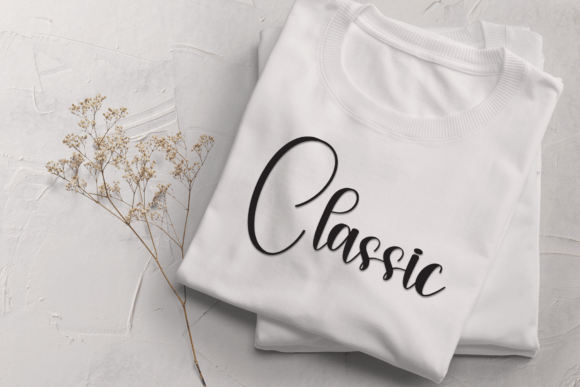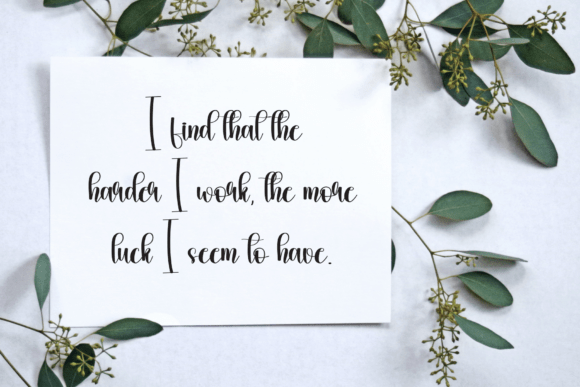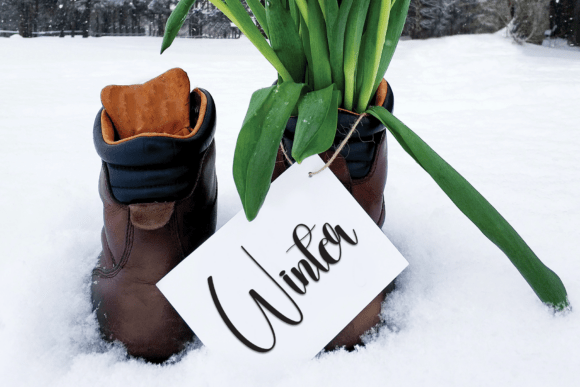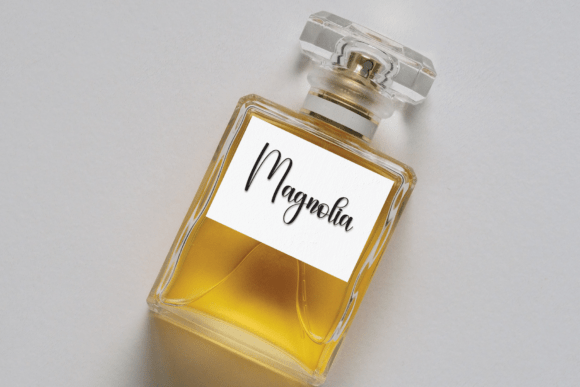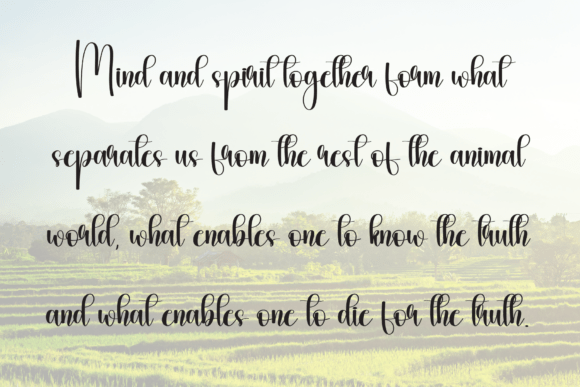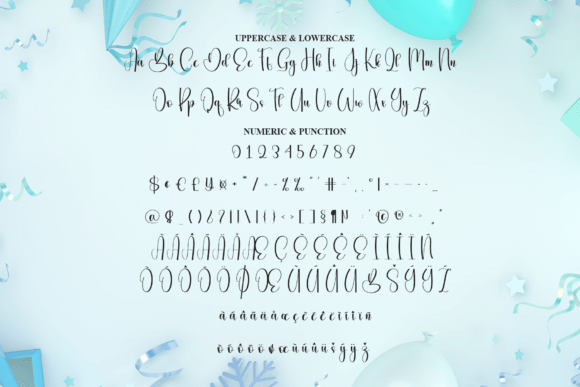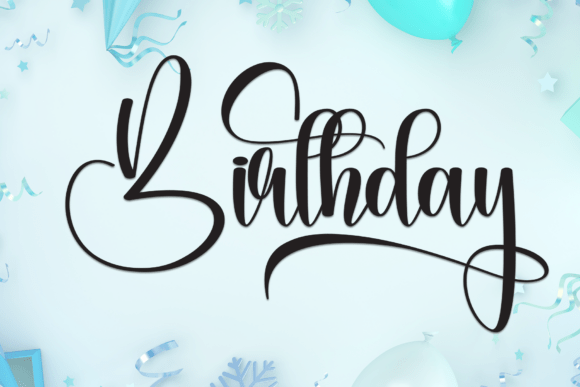
Birthday Font: The Amiable Handwritten Font for Joyful Celebrations
Are you looking for a font that can add a touch of whimsy and warmth to your designs? Look no further than the Birthday Font, an amiable handwritten font that exudes playfulness and sophistication. This delightful font is perfect for capturing and enhancing moments of joy and celebration, making it a gem in typography that brings a sprinkle of fun to any design.
The Charm of Birthday Font
The Birthday Font is a handwritten font that is designed to bring a sense of friendliness and approachability to your designs. Its playful and whimsical style makes it perfect for crafting enchanting wedding invitations, eye-catching cards, and other celebratory materials. With its sweet and charming personality, this font is sure to make every word resonate with feeling.
Perfect for Celebratory Designs
Whether you’re a designer or a crafter, the Birthday Font is an excellent choice for any project that calls for a touch of fun and playfulness. Its delightful style brings to life any design that needs a sprinkle of whimsy and warmth. From wedding invitations and birthday cards to party decorations and social media graphics, this font is versatile and easy to use.
- Playful Sophistication: The Birthday Font has a unique blend of playfulness and sophistication that makes it perfect for celebratory designs.
- Whimsical Style: Its whimsical style adds a touch of fun and personality to any design.
- Easy to Read: The font is easy to read and understand, making it perfect for body text and headings.
- Versatile: The Birthday Font is versatile and can be used for a wide range of design projects, from digital to print.
Tips for Using Birthday Font
Here are some tips for using the Birthday Font in your designs:
- Pair with Other Fonts: Pair the Birthday Font with other fonts to create a unique and interesting contrast.
- Use for Headings and Titles: Use the Birthday Font for headings and titles to add a touch of playfulness and whimsy.
- Add Colors and Graphics: Add colors and graphics to your design to make it more visually appealing.
- Experiment with Different Sizes: Experiment with different font sizes to create a hierarchy of information and add visual interest.
The Birthday Font offers several benefits for designers and crafters, including:
- Time-Saving: The Birthday Font saves time and effort in designing and crafting celebratory materials.
- Unique Designs: The font helps create unique and eye-catching designs that stand out from the crowd.
- Easy to Use: The Birthday Font is easy to use and requires no special design skills.
- Customizable: The font can be customized to fit your design needs and preferences.
In conclusion, the Birthday Font is a delightful and amiable handwritten font that exudes playfulness and sophistication. Its whimsical style and sweet personality make it perfect for capturing and enhancing moments of joy and celebration. Whether you’re a designer or a crafter, this font is an excellent choice for any project that calls for a sprinkle of fun and whimsy. So why not give it a try and discover the charm and personality of the Birthday Font?